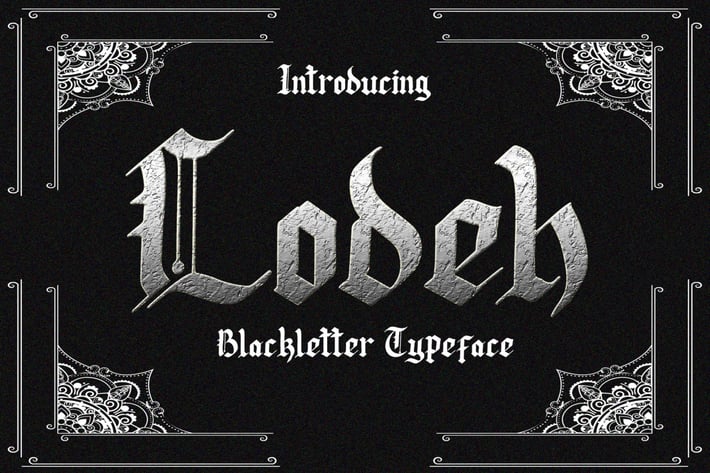
Lodeh - Black Letter Typeface
Introducing : Lodeh blackletter typeface!
It's the handwritten gothic style blackletter,suitable for some applications, logos, branding, posters, apparel printing designs,
cards, album cover, etc.
- Uppercase, lowercase, numerics and symbols